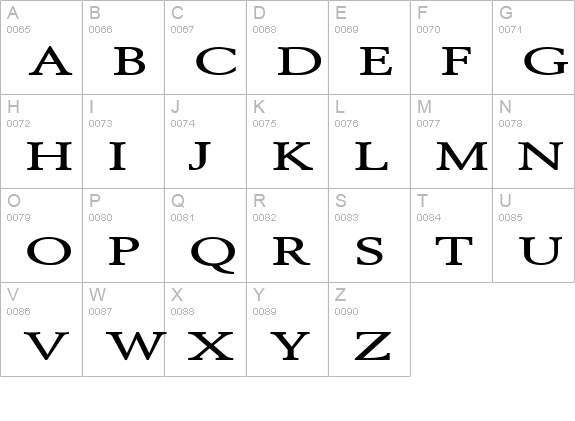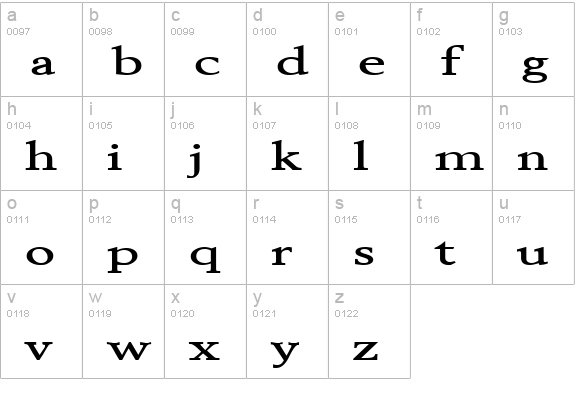
Revive 8 Extended Bold is a strong, high-contrast, extended-width variant in the Revive typeface family \xE2\x80\x94 well suited to headlines, attention-grabbing titles, and strong calls-to-action.
Revive 8 Extended Bold font is a stunning typeface that exudes confidence and power. Its bold and extended design captures attention and commands authority in any design project. The strong and assertive letterforms make it perfect for headlines, titles, and branding materials that need to make a bold statement. With its unique and distinctive appearance, Revive 8 Extended Bold font adds a touch of modernity and sophistication to any design. Its clean lines and sharp edges create a sense of professionalism and professionalism, making it a versatile choice for both print and digital media. This font is not only visually striking but also highly legible, ensuring that your message is easily understood by readers. Its generous spacing and well-balanced proportions enhance readability, even at smaller sizes. Whether used in body text or display settings, Revive 8 Extended Bold font maintains its clarity and impact. What's even better is that Revive 8 Extended Bold font is available for free download at FontsMarket.com. It allows designers, creatives, and enthusiasts to have access to this exceptional typeface without any cost. This freedom to use the font without restrictions opens up endless possibilities for designers to bring their visions to life. So, if you are looking for a bold and extended font that makes a lasting impression, look no further than Revive 8 Extended Bold font. Its powerful presence and free availability make it a must-have for any design project. Download it now and let your creativity soar.